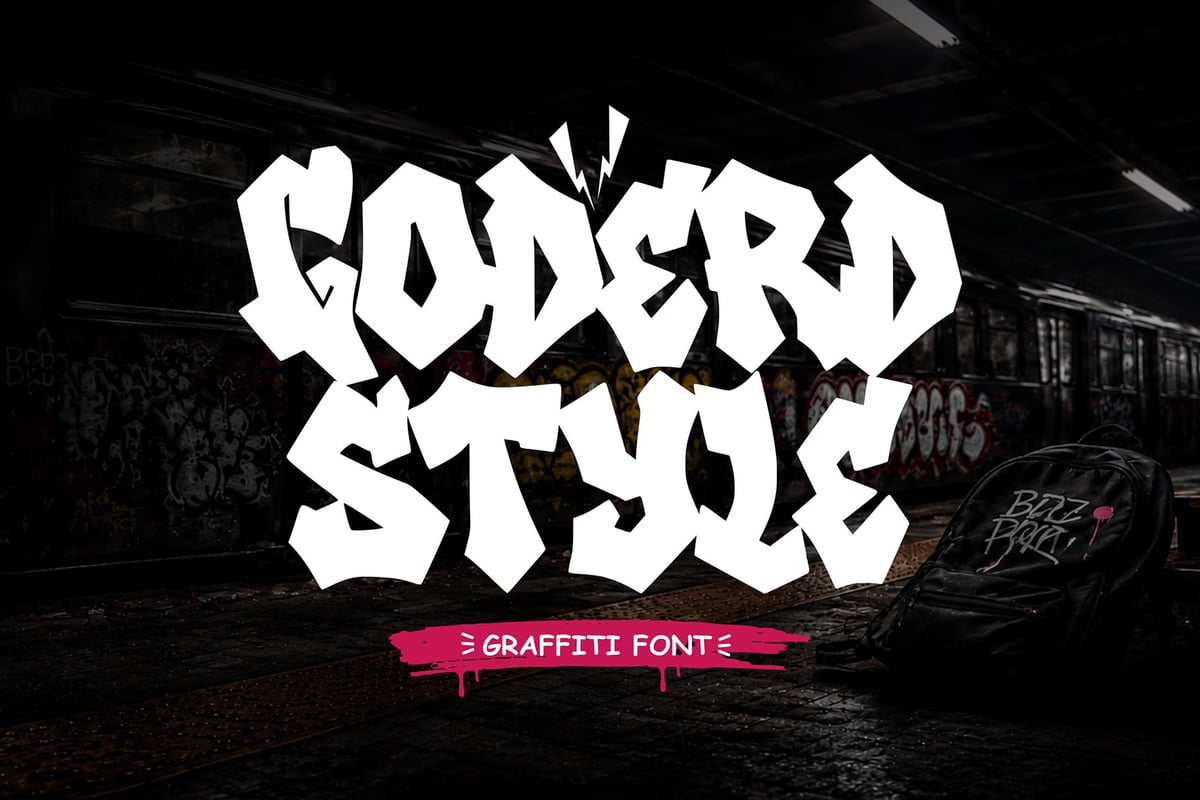
Goderd Style
Goderd Style is a heavy graffiti display font created to deliver bold urban energy with maximum visual impact. Inspired by authentic street graffiti, throw-up lettering, and oversized wall pieces, this font features thick, confident letterforms that instantly command attention. Every character is carefully designed to balance aggressive graffiti aesthetics with clean readability, making it ideal for both digital and print projects. Goderd Style includes uppercase characters, numbers, punctuatio